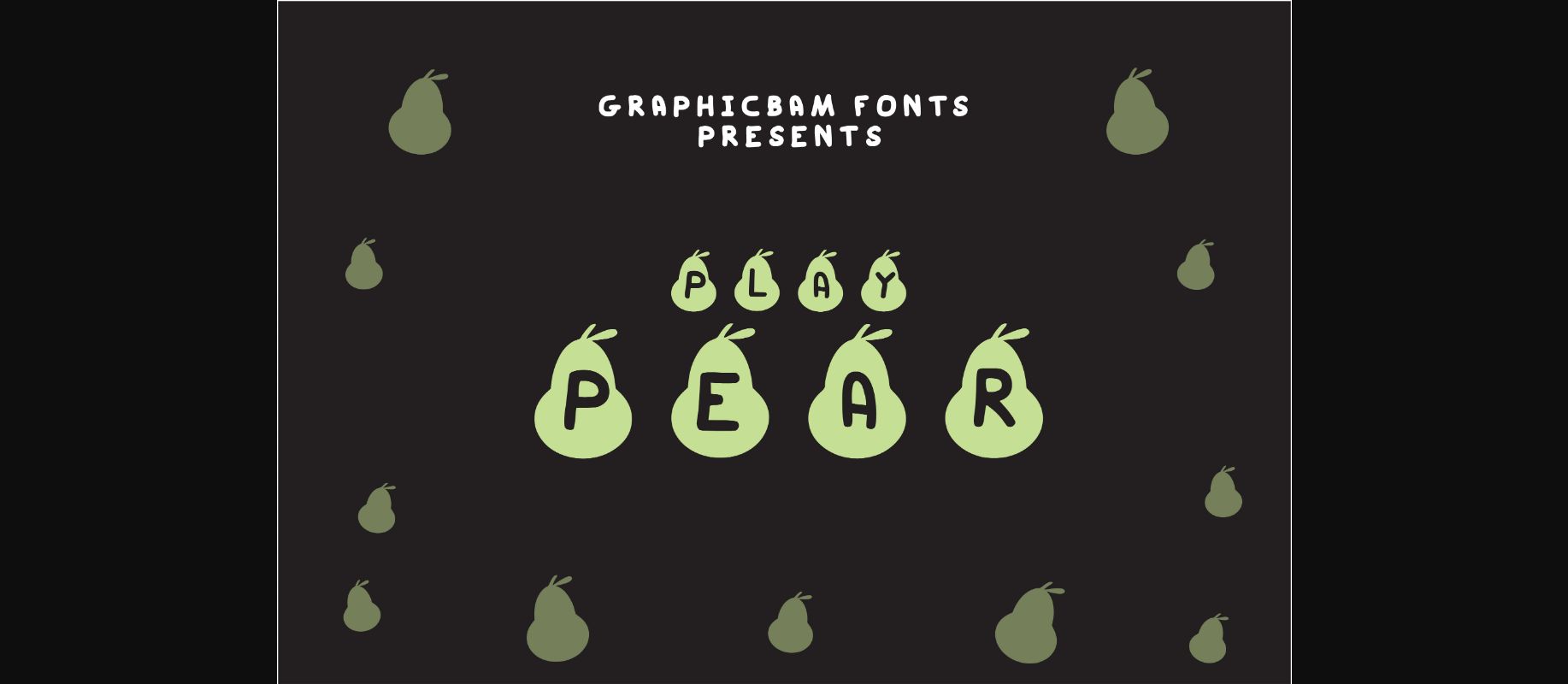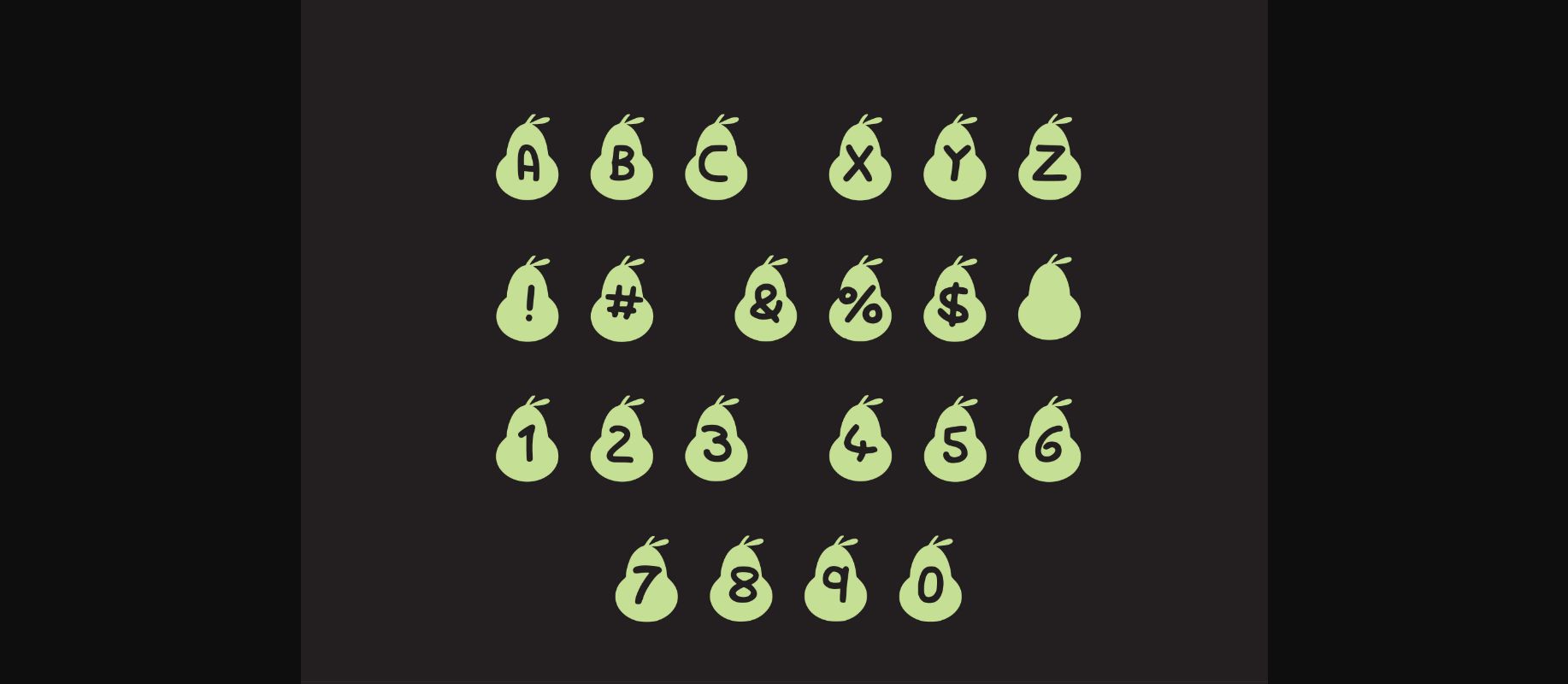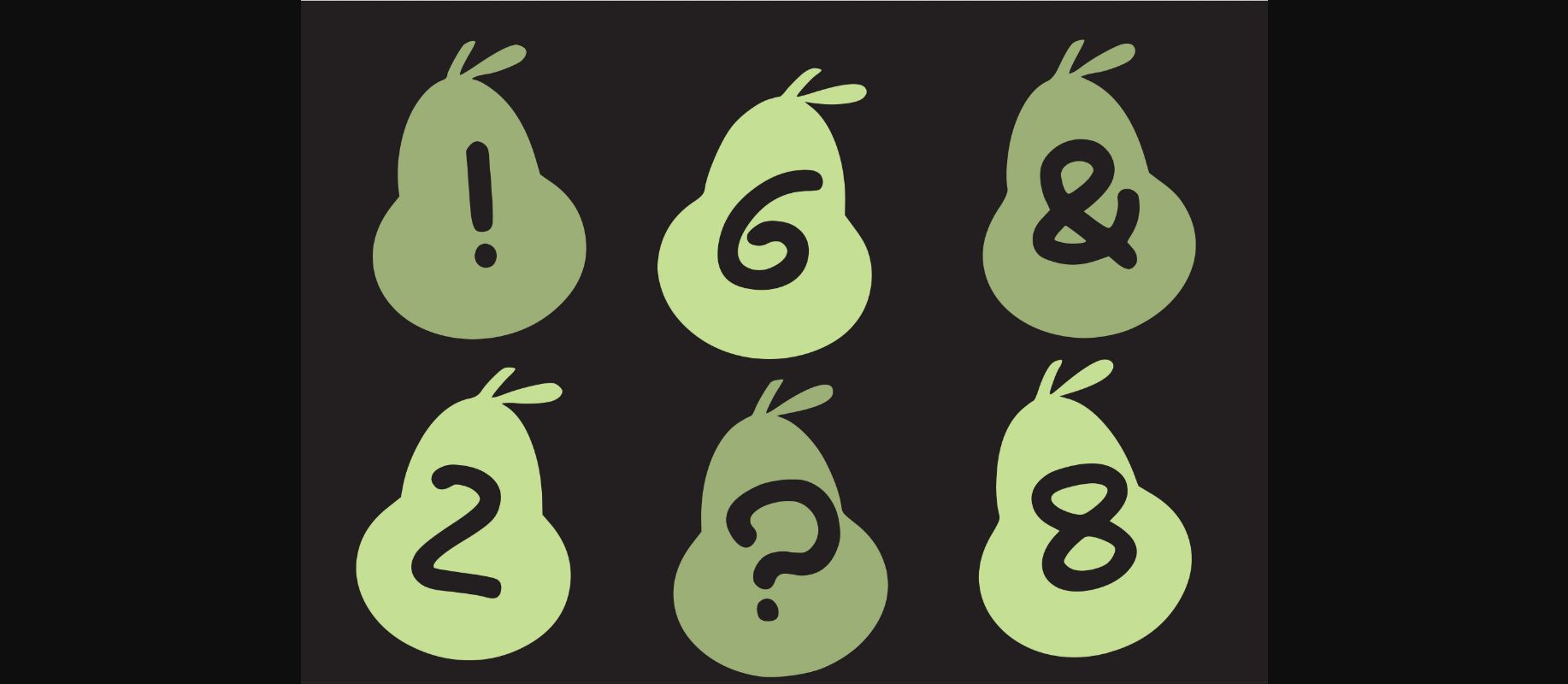
Play Pear – a sweet and playful decorative font that will impress you with its versatility! Use it for kitchen items, farm-related projects, product packaging, children’s designs, healthy food campaigns, banners, social media posts, and so much more.